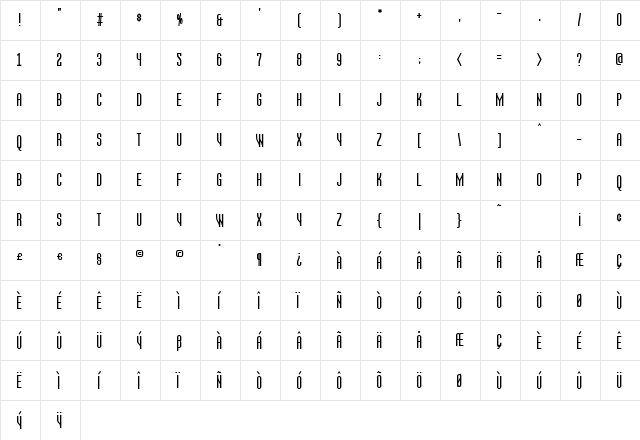
Laurel Regular
Design Context for Laurel Typeface
Laurel is a composed and adaptable typeface that performs quietly and consistently across a wide range of design contexts.